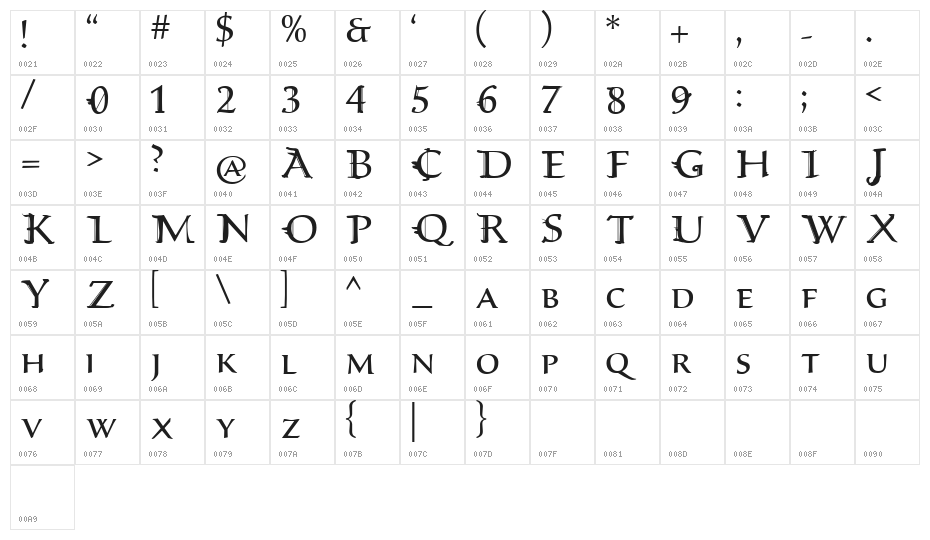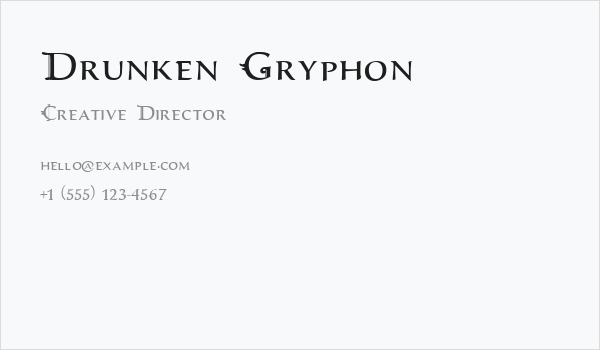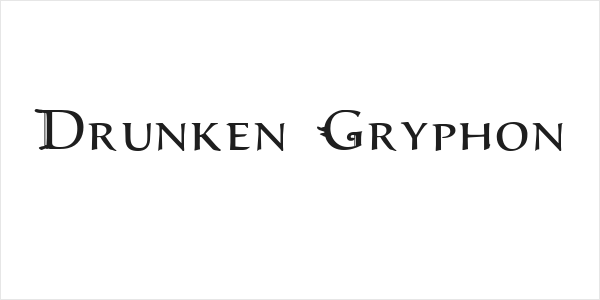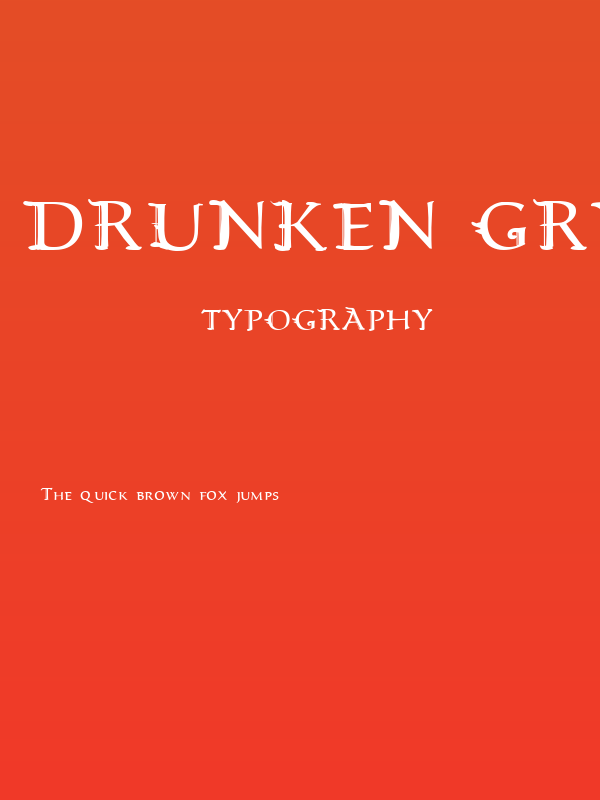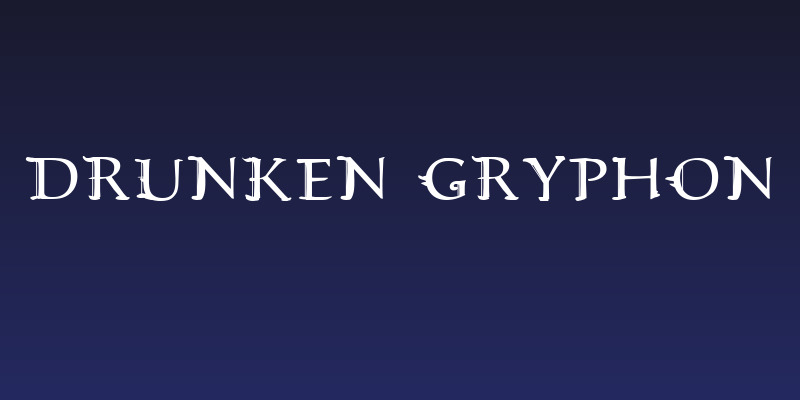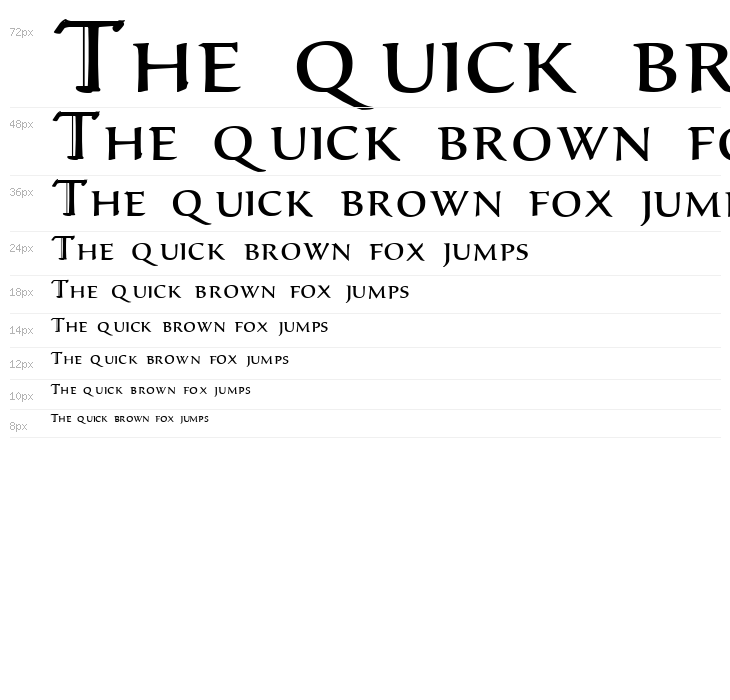
Drunken Gryphon Font
Drunken Gryphon Description
This font features a unique and whimsical design with a playful twist on traditional serif elements. The characters exhibit a dynamic and slightly irregular form, giving them a lively and animated appearance. The serifs are pronounced and slightly exaggerated, adding to the font's distinctive character. The uppercase letters maintain a consistent height, while the lowercase letters have a more varied and flowing structure. Numbers and special characters are crafted with the same playful style, ensuring a cohesive look across all elements. The overall design is both bold and expressive, making it suitable for creative and eye-catching projects.
| Proposed Projects | Ideal for creative projects such as posters, book covers, branding, and any design requiring a bold, artistic touch. |